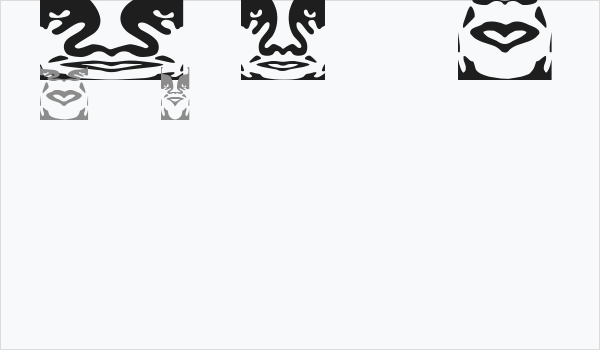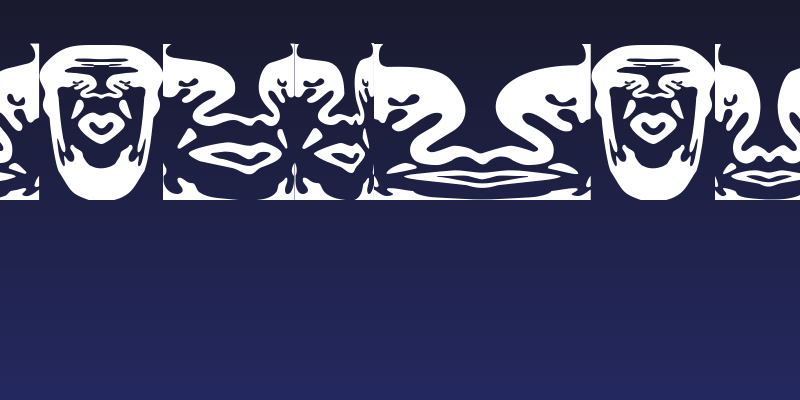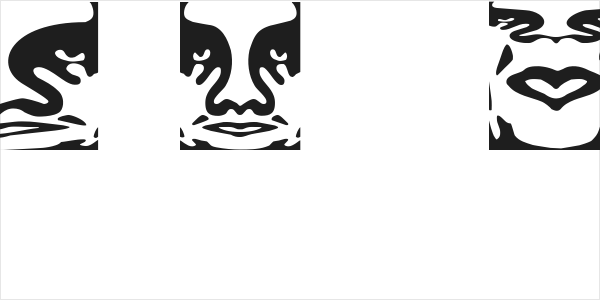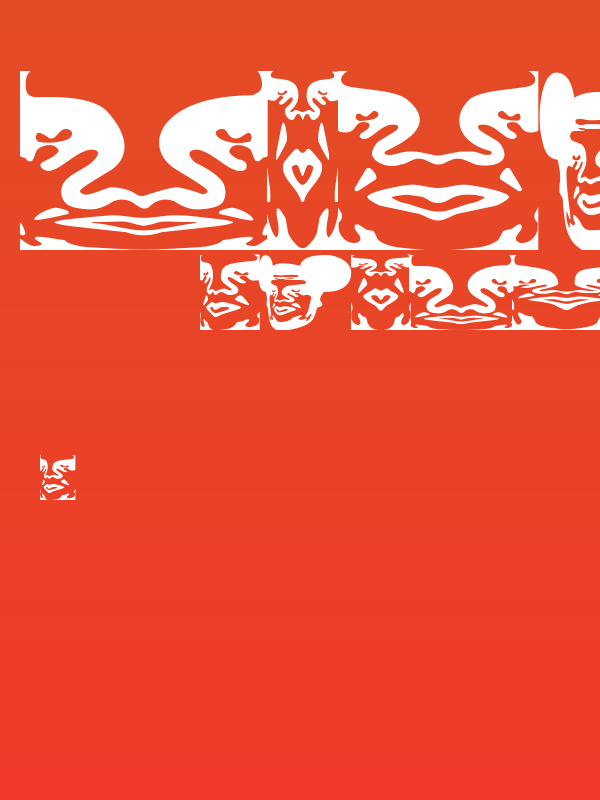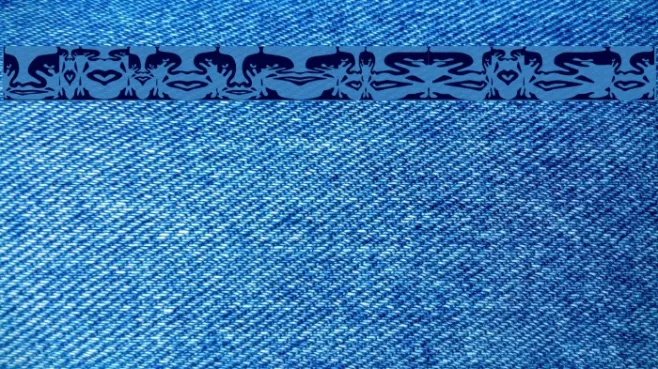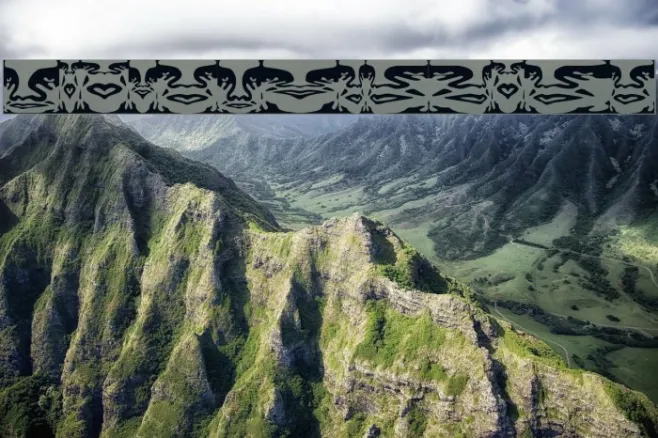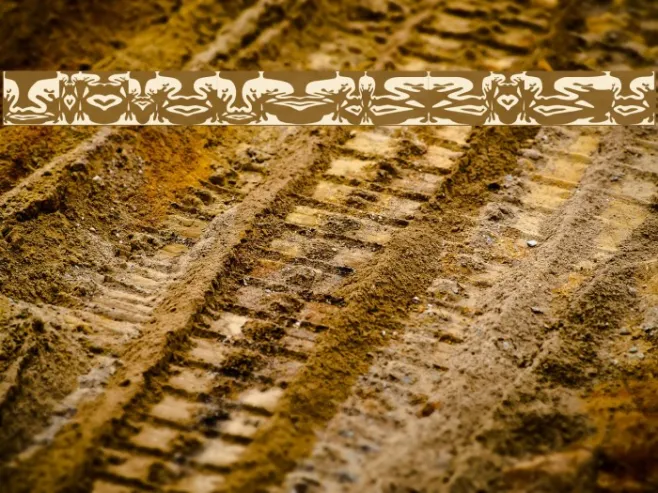
ObeyFunhouseCaps Font
ObeyFunhouseCaps Description
This font features a highly decorative and artistic style, incorporating intricate patterns and abstract shapes within each character. The design is bold and eye-catching, with a unique blend of faces and abstract elements that create a sense of movement and energy. Each letter is a work of art, making it suitable for projects that require a strong visual impact. The characters are tightly spaced, enhancing the overall compact and dense appearance. This font is ideal for creative and unconventional designs, where the typography itself becomes a central element of the visual composition.
| Use Case | Logos, Headlines, Artistic Projects |
| Proposed Projects | Ideal for posters, album covers, artistic projects, and branding that requires a strong visual statement. |